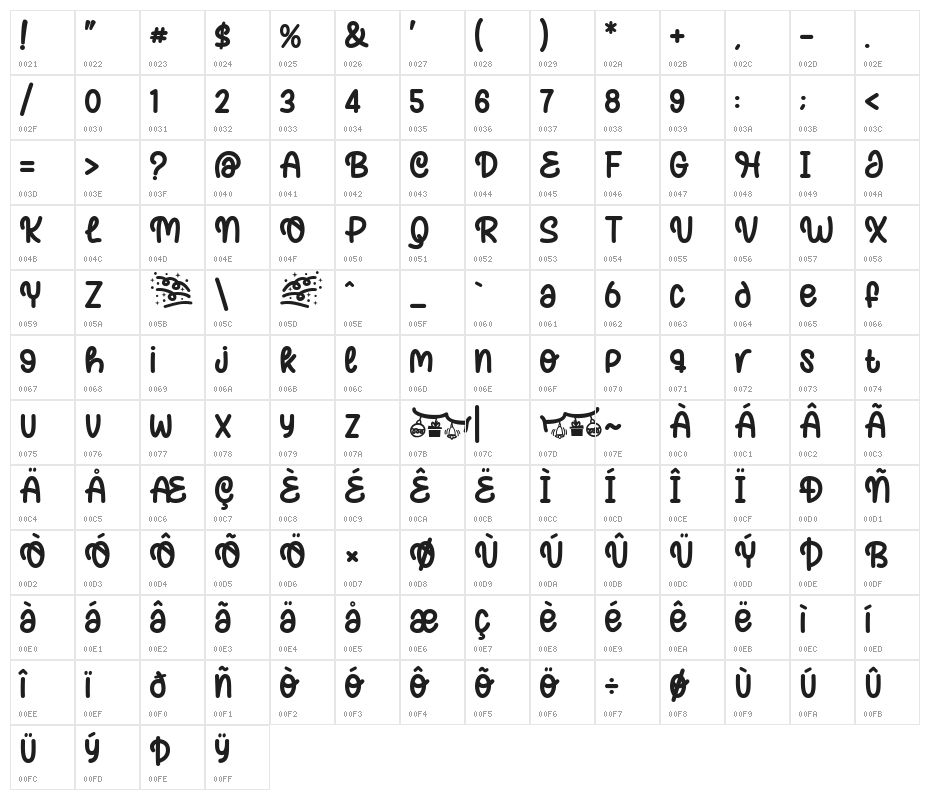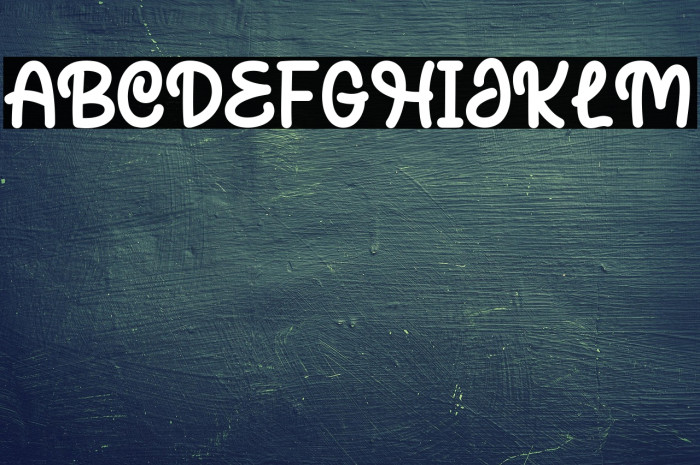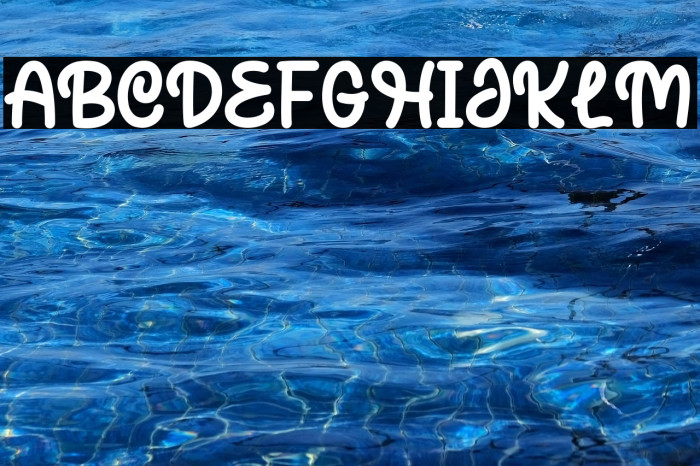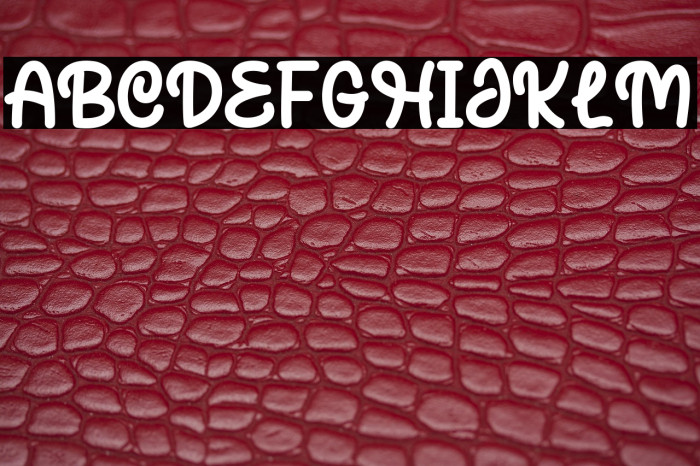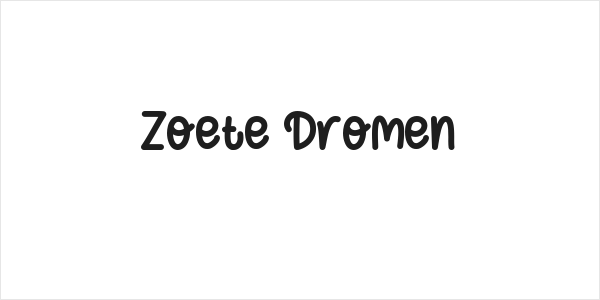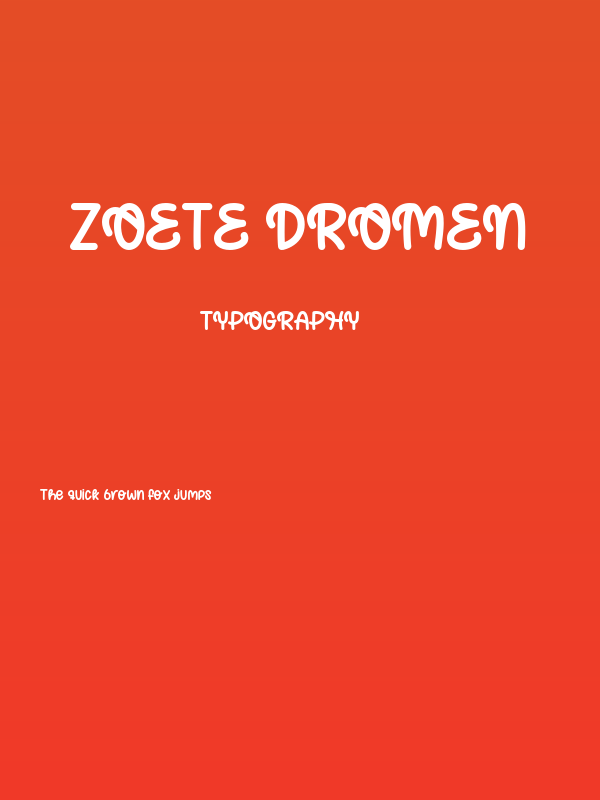
Zoete Dromen Font
Zoete Dromen Description
This playful and whimsical font features rounded, bold characters with a hand-drawn appearance. The letters have a consistent thickness, giving them a uniform and cohesive look. The style is casual and friendly, with a slight bounce in the baseline that adds to its charm. The numbers and special characters maintain the same playful aesthetic, making it versatile for various uses. The font's overall appearance is approachable and fun, making it suitable for projects that require a lighthearted and informal touch.
| Proposed Projects | Ideal for children's books, playful branding, greeting cards, and informal invitations. |